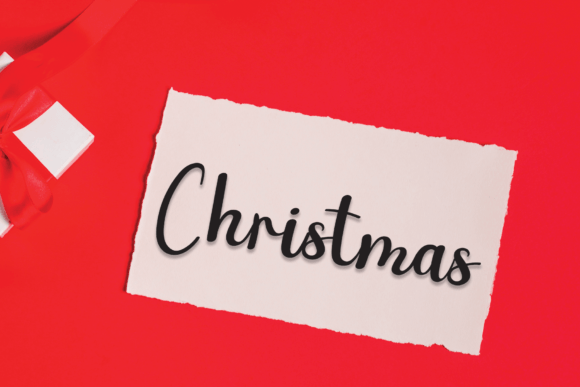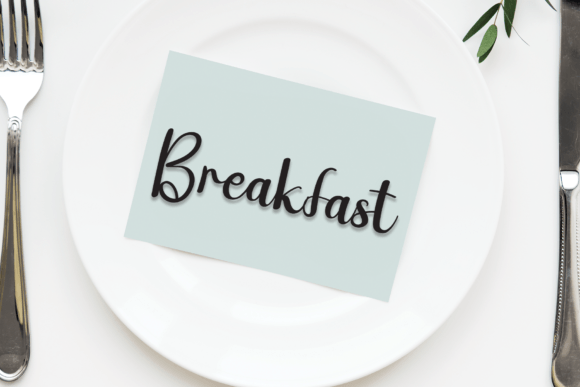
Black Friday Font
About Black Friday Font Download
The Black Friday Font Download is a fun and friendly handwritten script designed to add personality and warmth to creative projects. With its playful curves and natural handwritten strokes, it is ideal for invitations, posters, digital content, and branding. Because of its versatile style, it can be confidently used for both personal and professional designs.
A Fun Script with Playful Charm
The Black Friday script font blends smooth handwritten details with a modern, friendly look. As a result, it feels approachable and stylish. Furthermore, it adapts easily to small stationery projects and bold displays, which makes it a flexible tool for designers.
Handwritten fonts always bring warmth to personal projects. The Black Friday Font is excellent for wedding invitations, birthday notes, thank you cards, and holiday greetings. Because of its playful rhythm, every card looks unique and heartfelt. In addition, it adds joy to festive stationery.
Branding and Logo Design with Black Friday Font
Typography shapes how people see a brand. The Black Friday handwritten font is a great choice for boutique logos, packaging, and promotional content. Its casual handwritten charm allows businesses to appear professional yet friendly. Therefore, it is especially suitable for creative and lifestyle brands.
Posters, Titles, and Creative Displays
The Black Friday Font Download is also an excellent fit for posters, magazines, banners, and book covers. It holds its clarity at every size while adding handwritten personality. Consequently, it is a dependable font for designers who want both creativity and legibility.
In the online world, fonts must grab attention while staying readable. The Black Friday typeface integrates seamlessly into Instagram posts, YouTube thumbnails, Pinterest boards, and blogs. Because of its friendly handwritten style, it ensures digital projects look modern and engaging.
Why Designers Choose Black Friday Typeface
Designers appreciate fonts that balance charm and usability. The Black Friday handwritten script keeps its fun character while remaining clear. This balance makes it suitable for hobbyists and professionals alike. Moreover, its timeless style ensures it stays relevant across different projects.
Add Friendly Charm to Your Projects Today